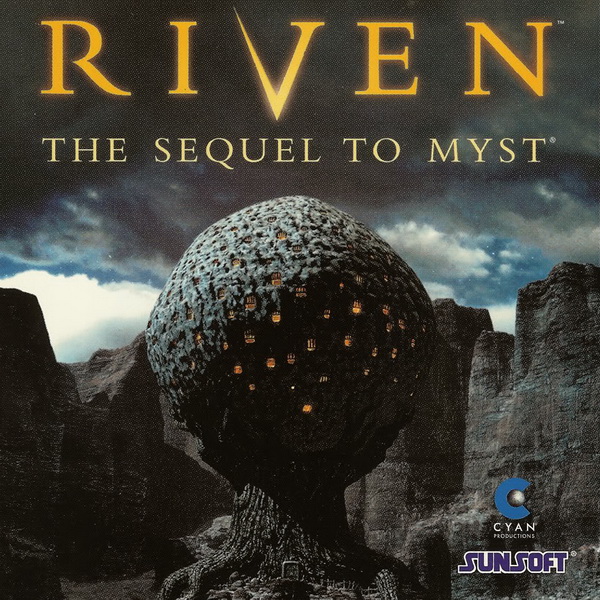
Riven Font
ActionRiven a puzzle adventure video game, is a sequel to Myst. It is the second in the Myst series of games, developed by Cyan Worlds. The gameplay centers around the main non-player protagonist Atrus who enlists the help of the player character to free his wife from his power-hungry father, Gehn.
The lettering for the Riven logotype of the game is very close to a font named Riven by Michael Bower and is available as a complete character set.